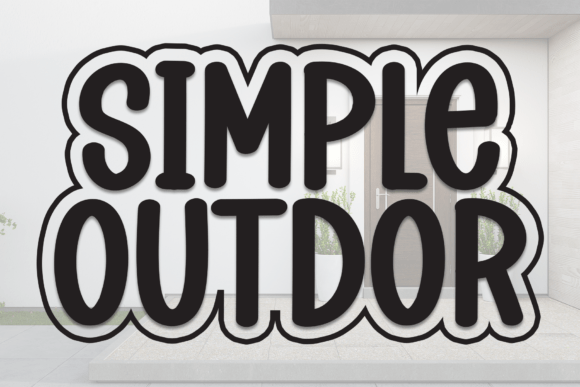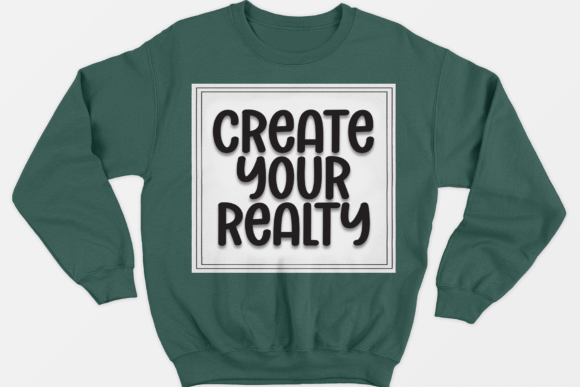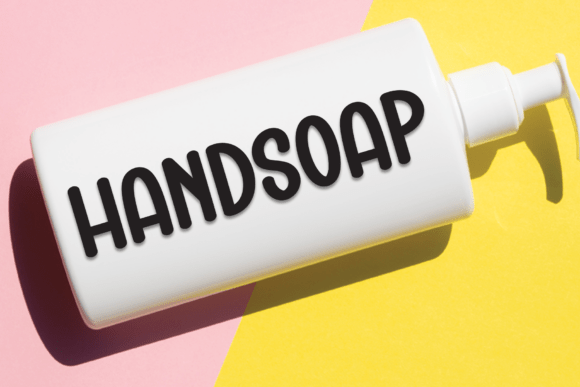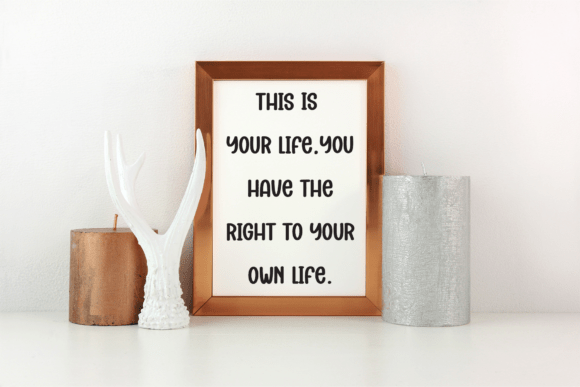
Simple Outdor Font
About the Simple Outdor Font
From logos to headlines, the Simple Outdor Font is the perfect choice for making a lasting impression. Simple Outdoor is a fun and chunky display font with a bold yet friendly aesthetic. The thick letterforms and smooth curves make it perfect for outdoor-themed projects, stickers, branding, or signage. Its hand-drawn feel with a playful outline adds charm to craft projects, kids’ designs, and logos. If you’re looking for a font that stands out with personality and warmth, Simple Outdoor is the ideal choice!
Simple Outdor Font Usage Examples
Simple Outdor Font Example